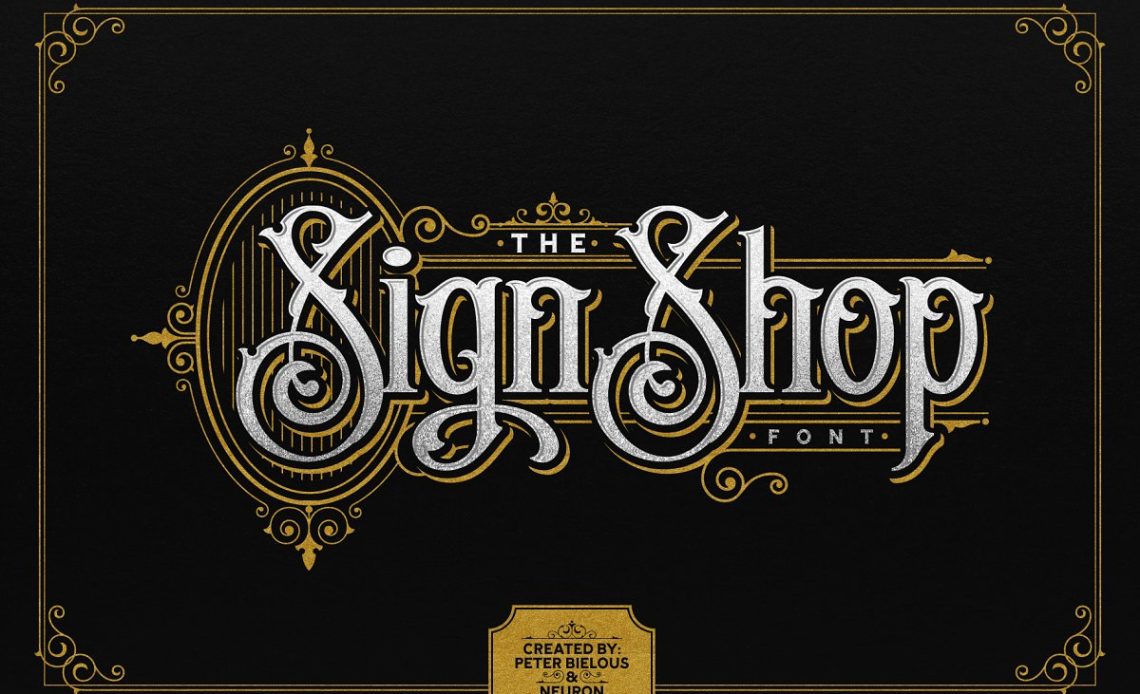
Introducing The Sign Shop Font, the ultimate font collection designed to elevate your creative projects to new heights! Created by the talented Nurron Shodiqin, this debut font is a collaboration between two brilliant minds, Peter Bielous and Neuron.
Inspired by the elegance of the Victorian era, The Sign Shop Font exudes a timeless charm with its vintage appearance. Whether you're designing a logo, signage, or any other creative masterpiece, this font is your perfect companion to bring an old-world charm to your work.
But that's not all - the package includes an extraordinary bonus font called Old Taverna, which perfectly complements The Sign Shop Font. Together, they create a harmonious blend that will captivate your audience and leave a lasting impression.
To add even more flair to your designs, we've included a treasure trove of vector bonus ornaments exclusively crafted for this font. These ornaments are the cherry on top, enabling you to infuse your creations with a touch of uniqueness and sophistication.
With The Sign Shop Font, the possibilities are endless. Let your imagination run wild and create something truly one-of-a-kind. Dive into the world of vintage aesthetics and watch as your designs come to life with unparalleled elegance.
Unlock your creativity and embark on a journey that will transport you back in time. The Sign Shop Font is not just a font - it's an experience, a gateway to a world filled with nostalgia and charm.